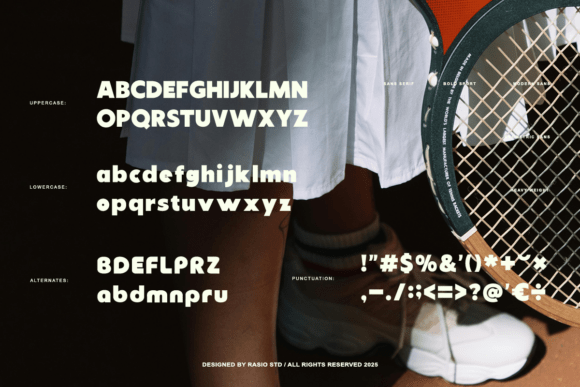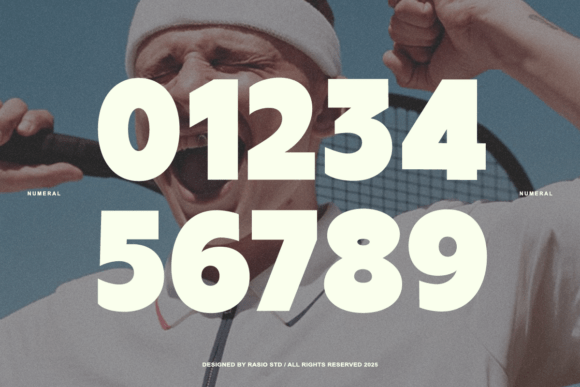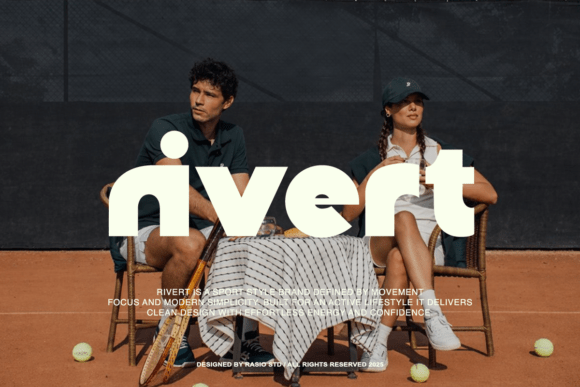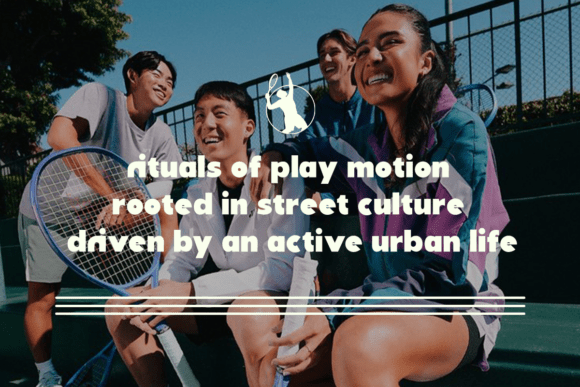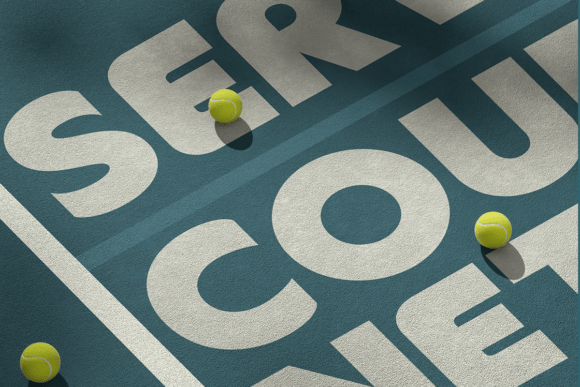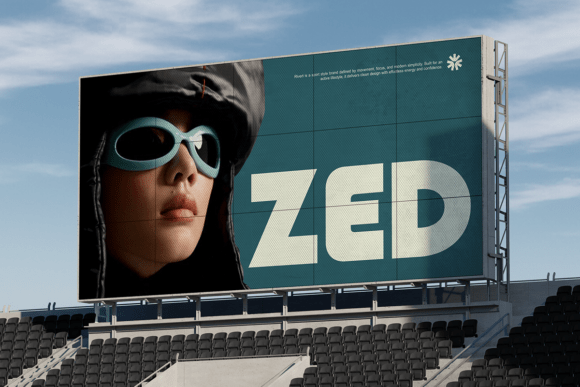
Introduction to Melmo Font
Imagine you’re brainstorming a creative project, and the perfect font suddenly pops into your head – one that screams energy, dynamism, and visual impact. For designers, finding that elusive font can be the difference between a meh design and a masterpiece that leaves a lasting impression. Enter Melmo Font, a bold and modern sans serif typeface designed to elevate your branding, headlines, and visuals to the next level.
With its geometric letterforms, sporty proportions, and subtle character alternates, Melmo Font offers a unique blend of versatility and power that’s hard to resist. Whether you’re working on a high-quality design project or just need a reliable design resource, this font has got you covered. Plus, with its transparent background and multilingual support, Melmo Font is the perfect choice for global use – and the best part? It’s available for free download, making it an unbeatable asset for designers of all levels.
- High-quality, vector-based font with a transparent background, ideal for creative projects.
- Offers a large character set, with over 200 glyphs, including international characters and symbols.
- Features a modern, minimalist design with a clean and elegant aesthetic, suitable for a variety of creative projects.
Honest Review: Melmo Font
I recently stumbled upon the Melmo Font, and I’m excited to share my thoughts with you. As a designer, I’m always on the lookout for high-quality fonts to elevate my creative projects.
What works well about the Melmo Font is its unique and playful style. The font is perfect for adding a touch of whimsy to your designs, and its high quality ensures that it looks great even on a transparent background. ✨
- The Melmo Font is highly versatile and can be used in a variety of creative projects, from branding to digital art.
However, I did notice a few limitations to the Melmo Font. The font may not be suitable for formal or professional projects, as it can come across as a bit too playful. Additionally, the font’s design may not be to everyone’s taste. ⚠️
Overall, I think the Melmo Font is a great addition to any designer’s toolkit. It’s a fun and creative font that can add a lot of personality to your projects. While it may not be suitable for every project, it’s definitely worth checking out if you’re looking for a unique and playful font.
The Melmo Font is a high-quality design resource that can elevate your creative project with its unique and modern style. With a transparent background, this font is perfect for adding a touch of sophistication to your designs.
Common Use Cases for Melmo Font
The Melmo Font is perfect for a variety of creative projects, including:
1. Logo design
2. Social media graphics
3. Brochures and flyers
4. Website design
5. Business cards